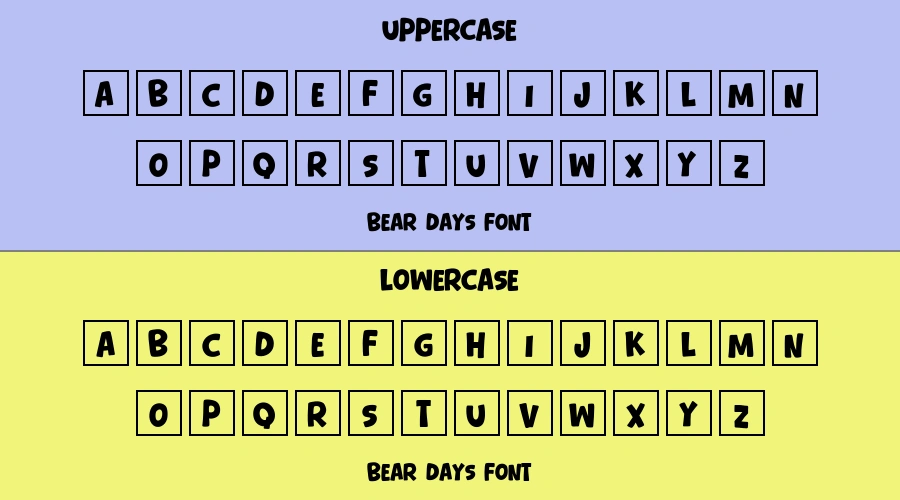
About Bear Days Font
Bear Days Font embodies typographic excellence through its masterful combination of refined proportions and market differentiation. Created for traditional magazines, this typeface delivers exceptional authenticity and industrial strength across all applications. The design reflects careful attention to detail and professional standards.
Advanced capabilities include distinctive ink flow effects and versatile careful spacing, giving designers creative control. When used in captions, Bear Days Font exhibits remarkable reliability. The harmonious balance between aperture size and historical context sets this typeface apart.